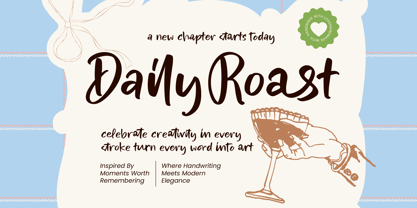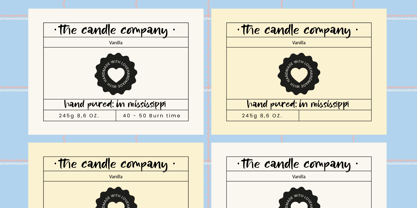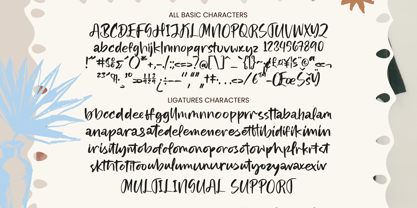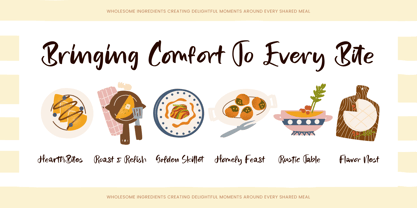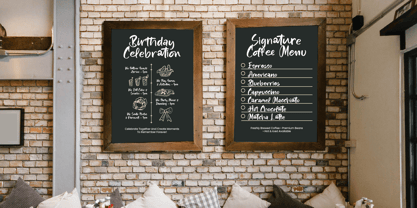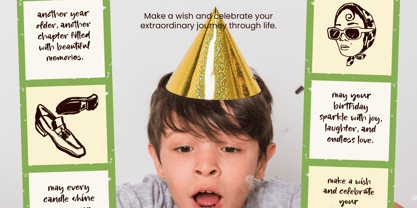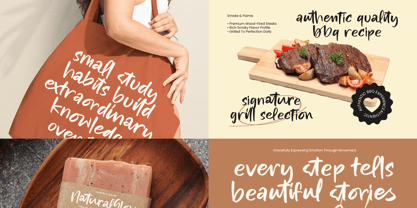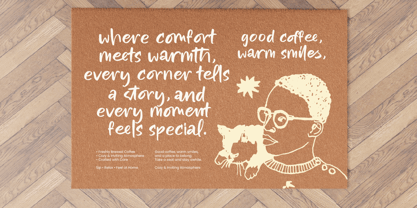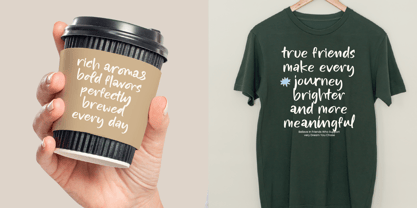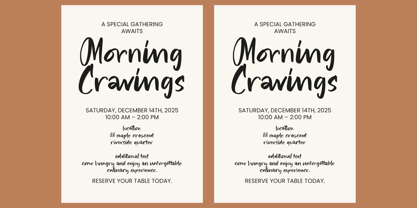
Daily Roast
Die Schriftfamilie Daily Roast wurde von Heru Utama Putra entworfen und von Stylishtype Studio veröffentlicht. Daily Roast enthält 2 Stile und Familienpaketoptionen. Mehr über diese Familie
Discover the ultimate tool for high-end lifestyle branding and sophisticated visual storytelling. This typeface is the perfect solution for luxury packaging, artisanal product labels, and social media branding. Whether you are designing boutique menus, wedding invitations, or editorial layouts, Daily Roast - Natural Handwritten Script provides a sophisticated aesthetic that resonates with modern audiences. It excels in environments where a welcoming atmosphere and authentic connection are paramount to the brand identity.